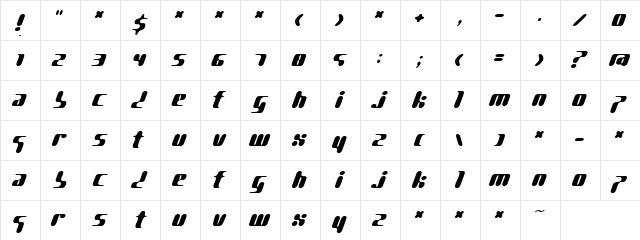
pg GENE Regular
Design Context for pg GENE Typeface
pg GENE is a composed and adaptable typeface that performs quietly and consistently across a wide range of design contexts.